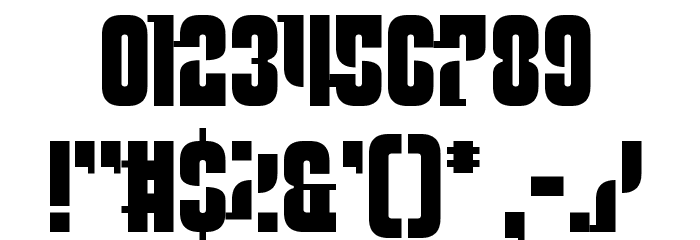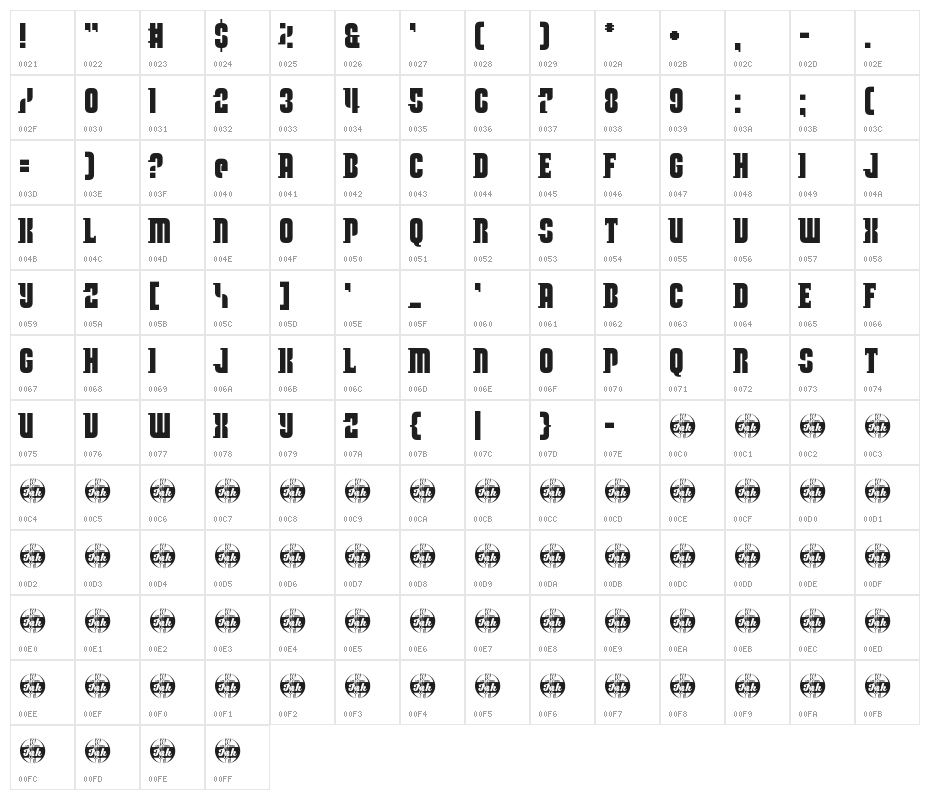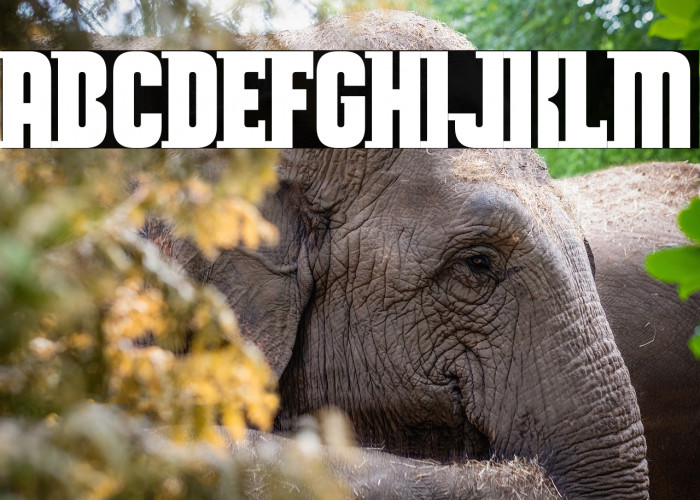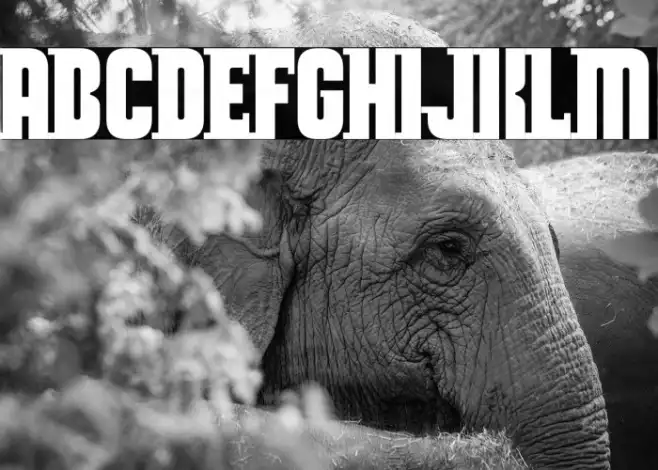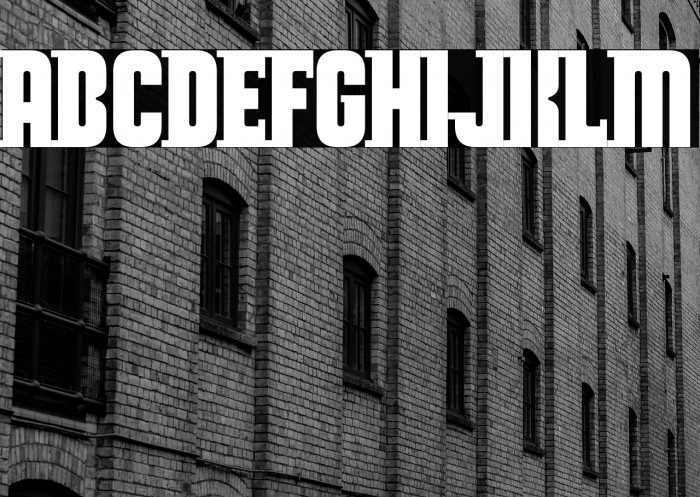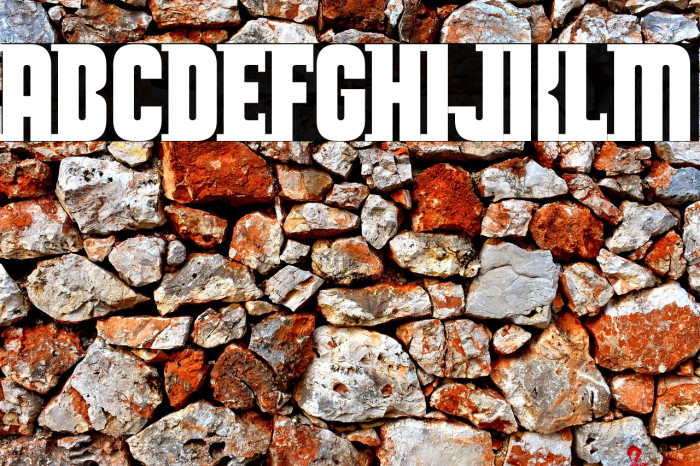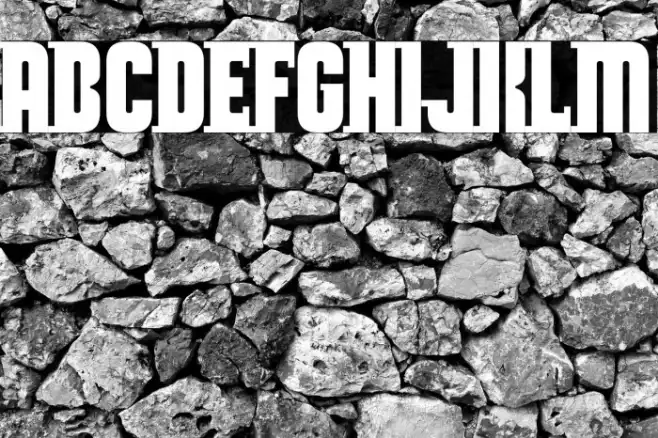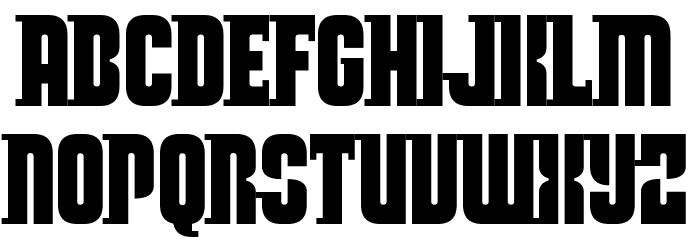
Doctor Beef Font
Doctor Beef Description
This font features a bold and impactful design with thick, block-like characters that convey strength and assertiveness. The uppercase and lowercase letters maintain a consistent height, creating a uniform appearance. The numbers and special characters follow the same bold style, ensuring cohesiveness across all elements. The font's geometric shapes and sharp edges give it a modern and industrial feel, making it suitable for attention-grabbing designs. Its strong presence is ideal for projects that require a commanding visual impact.
| Overall Style | Modern, Industrial |
| Proposed Projects | Ideal for posters, headlines, branding, and logos where a bold statement is needed. |